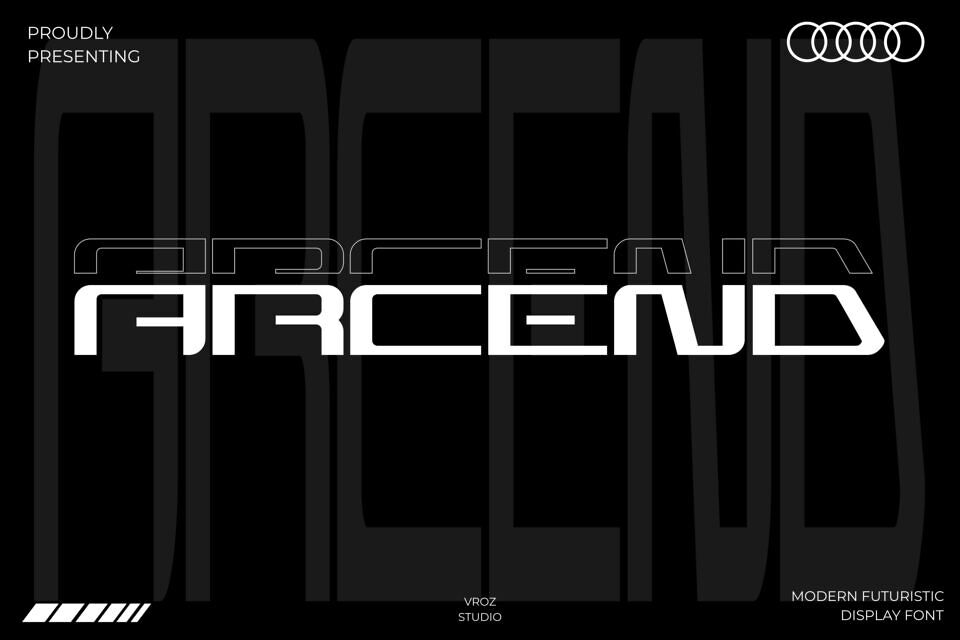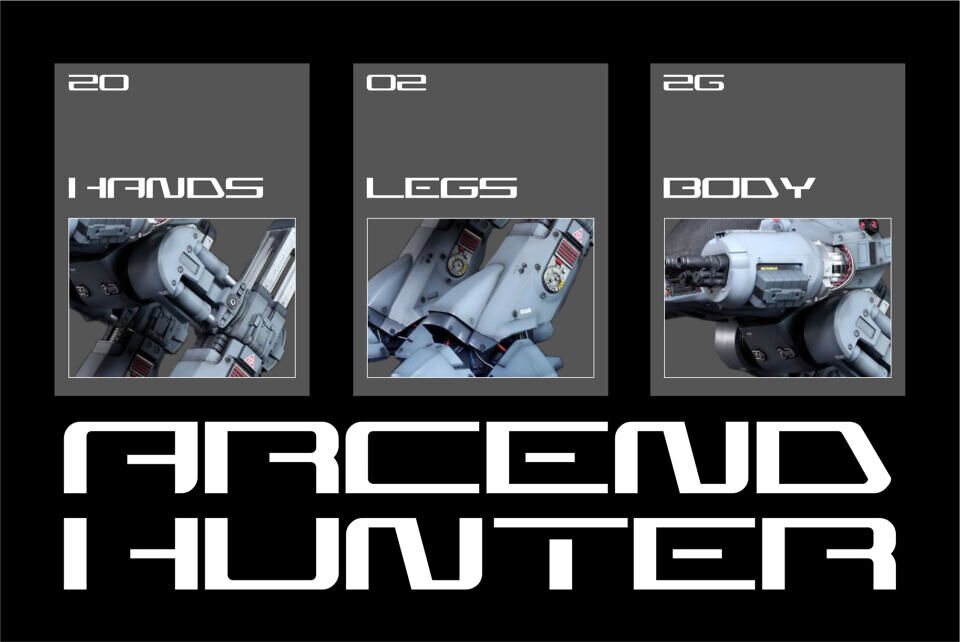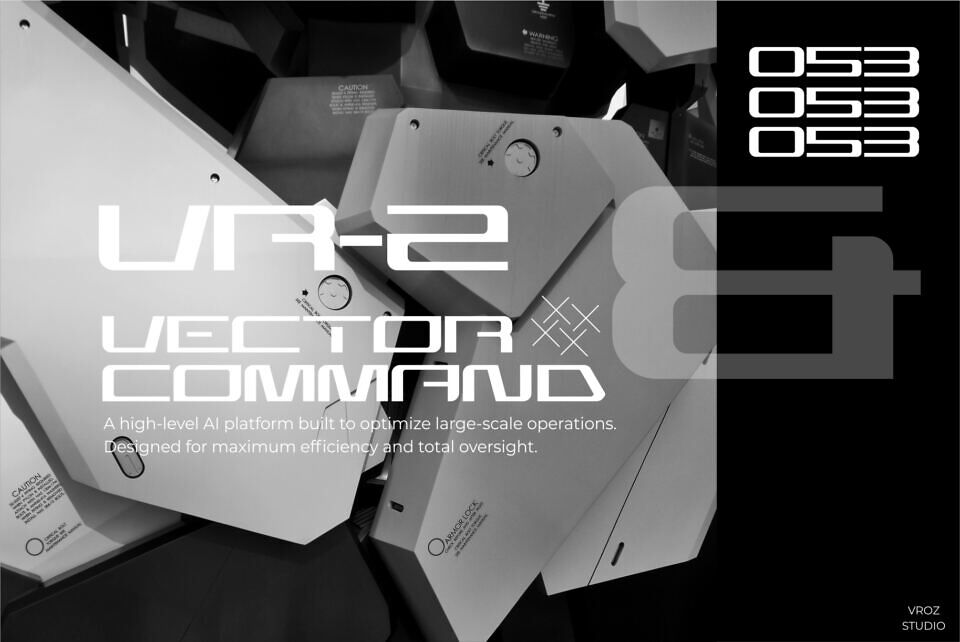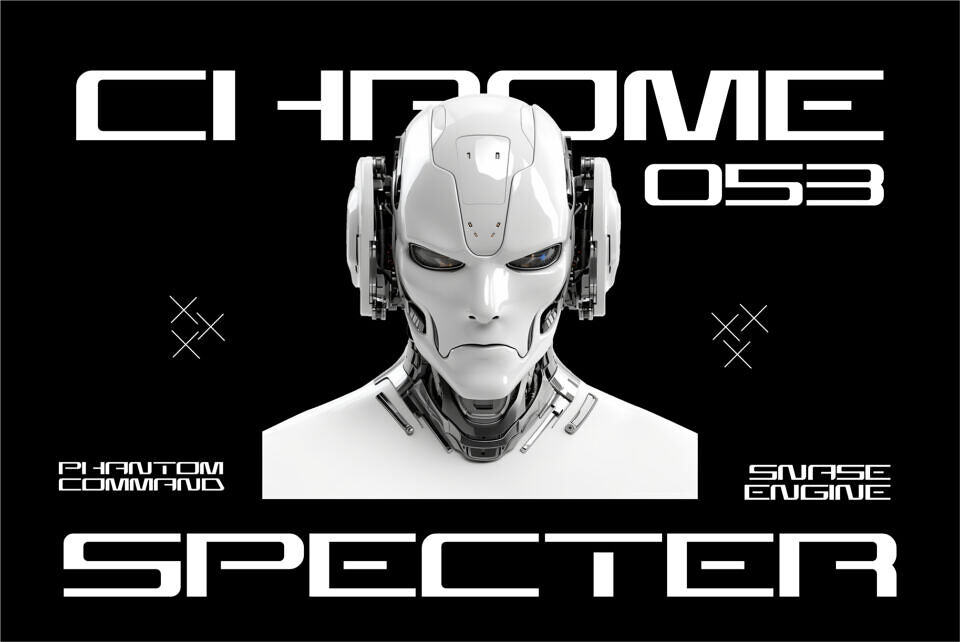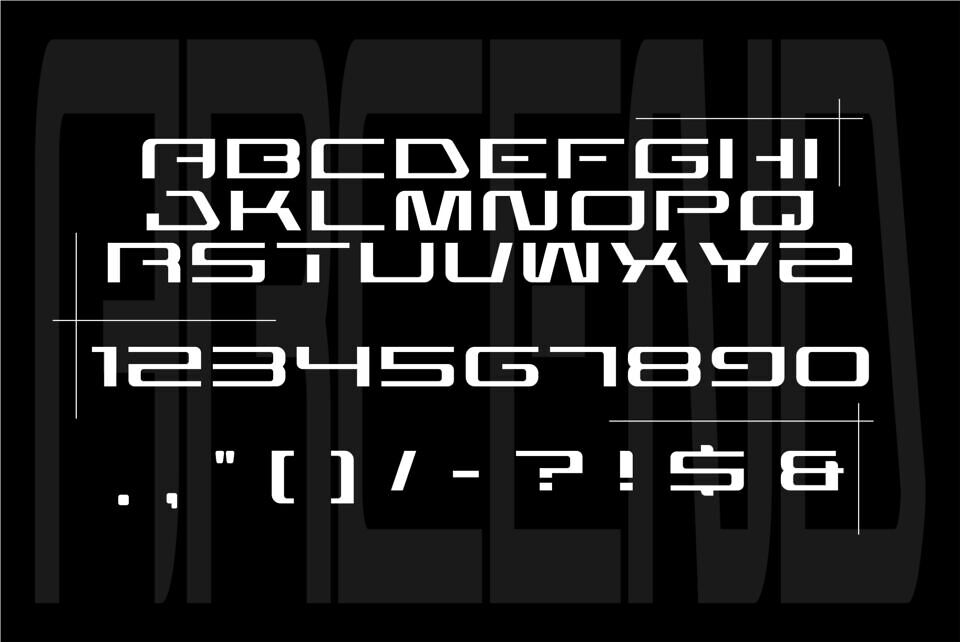
Arcend Font
ARCEND is a futuristic modern sans serif display font crafted for clarity, precision, and contemporary design needs. With its geometric structure, clean cuts, and smooth transitions, ARCEND delivers a confident and forward-looking visual style perfect for modern digital environments.
Designed to work seamlessly across a wide range of creative projects, ARCEND is ideal for branding, technology visuals, gaming graphics, posters, UI/UX layouts, and web interfaces. Its strong yet minimalist character allows it to stand out while maintaining a clean and professional appearance.